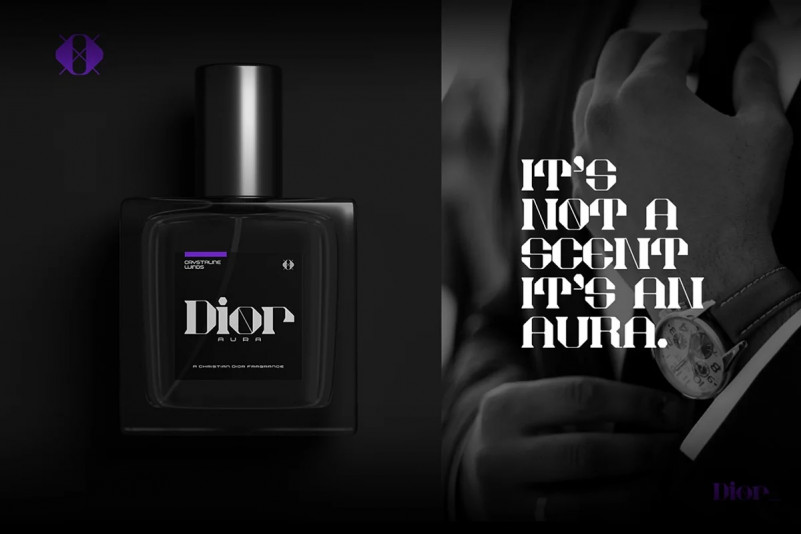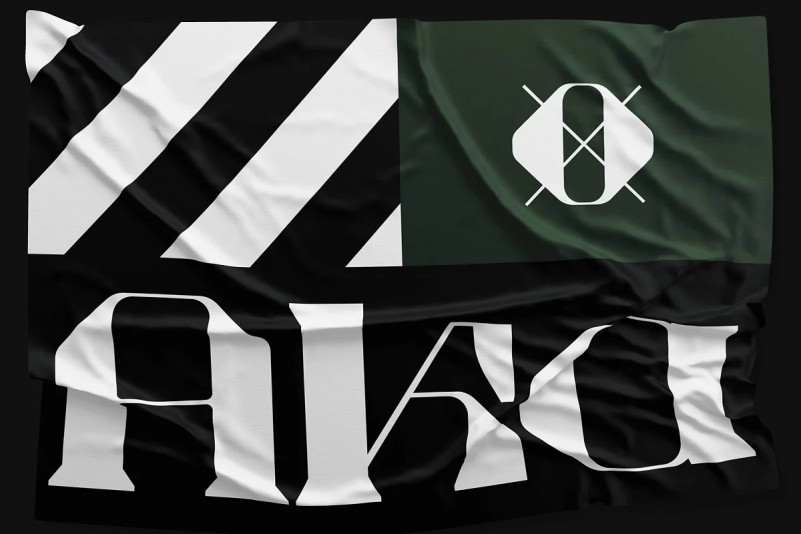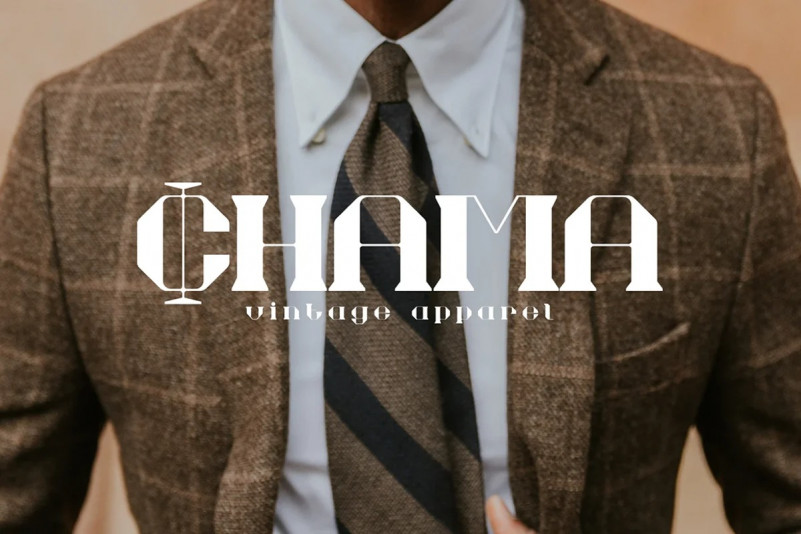
Akadis Font
Akadis Display is a hybrid between industrial and geometric sans shapes, fused with contrast and other features from contemporary serifs.
This typeface came out of experimentation on an existing and yet to be released sans serif. The typeface, in it’s current state, is perfect for use on headlines and designs that have a classical and contemporary aesthetic.